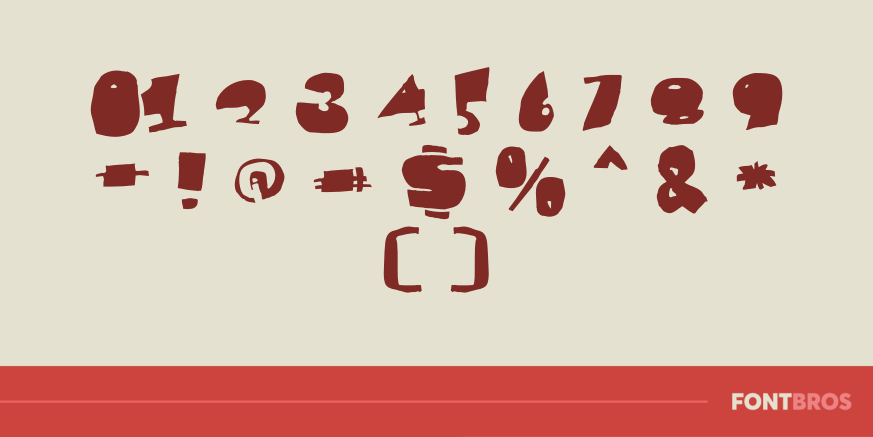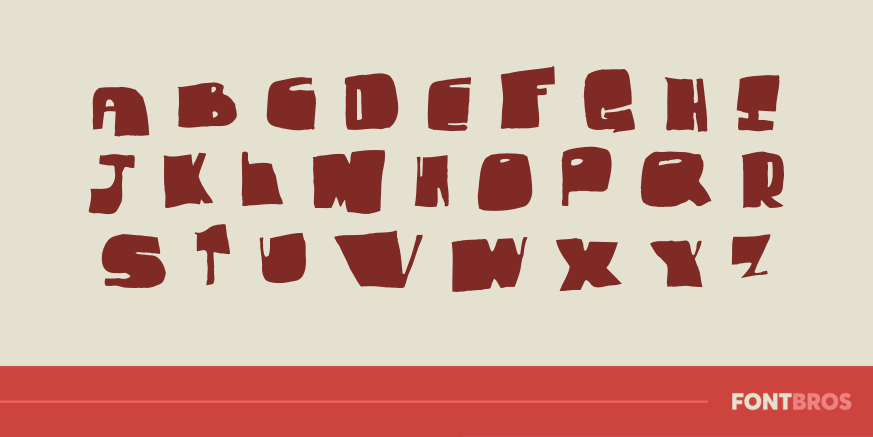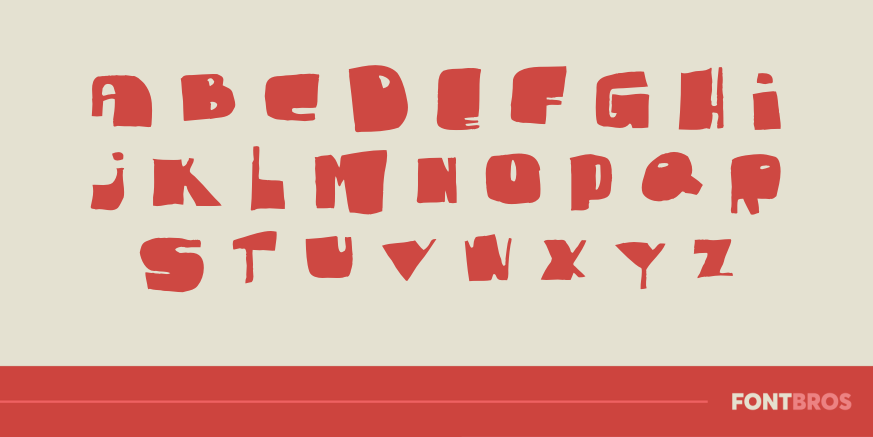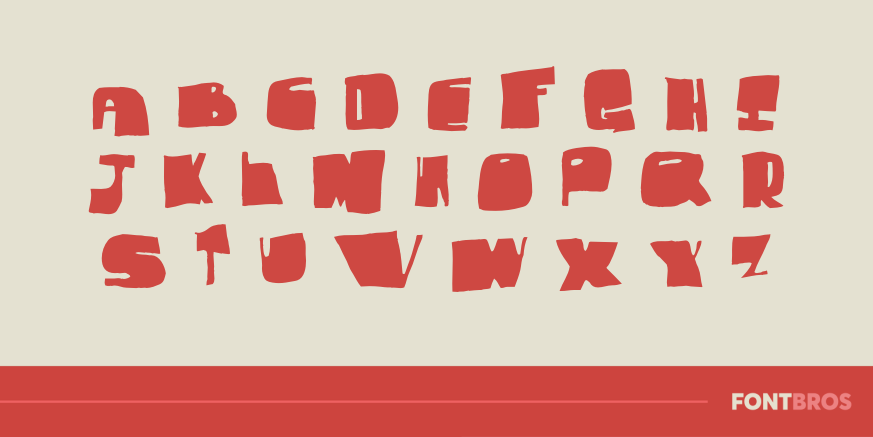
Fat Sam
Font Family by Font Diner
Bold, bumbling, heavy and wimpy all at the same time! It's Fat Sam with it's bulbous curves and timid serifs which make for big fun!